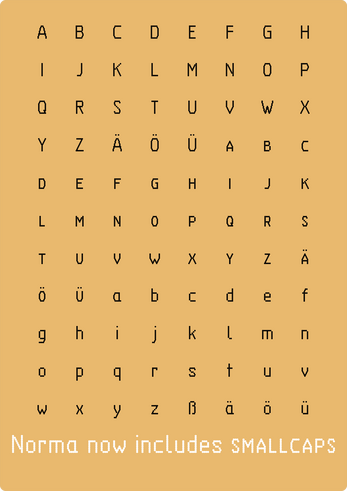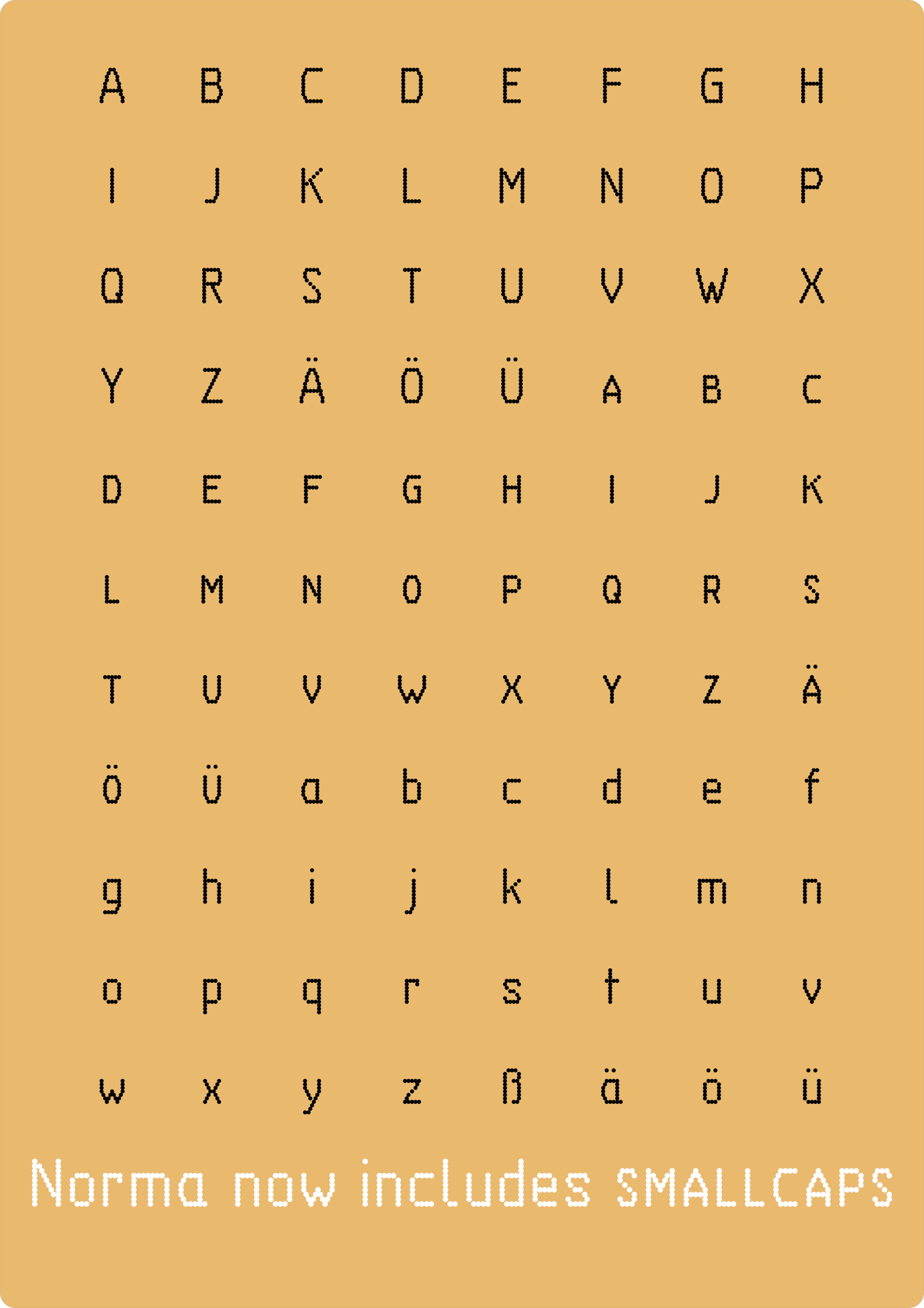
Norma Font
Norma is a fantasy dot matrix font base on DIN 6776 lettering for technical drawing (also known as TGL 31034 in the former East Germany, which is in fact the reference for this font). “Fantasy” dot matrix because no printer using this font ever existed.
The Cap-height is 10 dots, which meets the DIN standard requirement for stroke thickness to be 1/10th of the Cap-height; the x-height is 70% of that at 7 dots.
Descenders match ascenders and are 3 units; giving a 13 unit high body. Capitals with diacritics, the german umlaut, use an additional 3 units above the Cap-height.
The underlying design is a sans serif with monoline stroke and a squarish O. The standard style is slightly condensed.
Repertoire: i added all the glyphs from the existing specimen sheet for the TGL 31034 standard, which has the ASCII Latin alphabet and the umlauts and ß required for German. No other languages are explicitly covered (but some may be added in the future).
The TGL 31034 standard has roman numerals, so they are available as pre-built Unicodes. As an added bonus Dozenal Numbers (base 12) are supported with Turned Two and Turned Three.
The punctuation displayed in the TGL specimen is fairly limited, i have added a small number of extra punctuations and symbols.
Quotation marks as shown in the source images are low double quotes (Unicode U+201E) DOUBLE LOW-9 QUOTATION MARK and regular RIGHT DOUBLE QUOTATION MARK. The low marks are clearly drawn below the baseline; this is unusual for modern designs, but i have kept it. I've also added LEFT DOUBLE QUOTATION MARK as a clone of the RIGHT (if you like, you can think of them as rotated, because the actual drawing is just simple stroke).
In December 2025 as part of my Advent of Type project, i added smallcaps to Norma. I have now finished kerning those and incorporated them into the main release of this font.